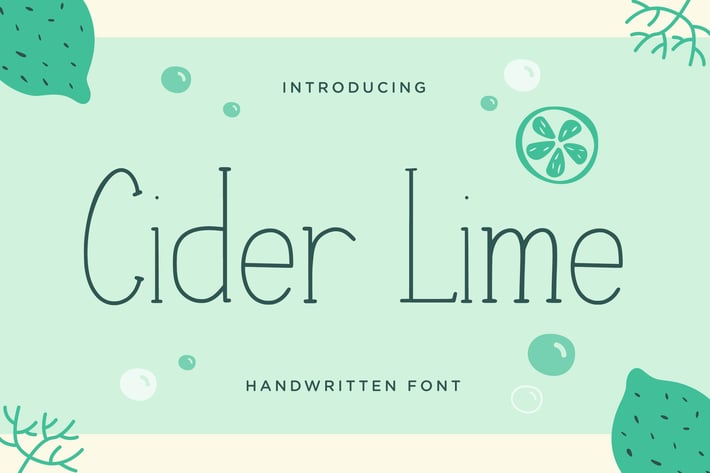
Cider Lime – Handwritten Font
Cider Lime is a fun handwritten font.
This thin, fun, and stylish font can be used for a host of different content needs and projects.
Create gorgeous party invitations, printed quotes, standout packaging, or beautiful t-shirts!
You can even use it to create amazing headings, logos, menus, and social media graphics.